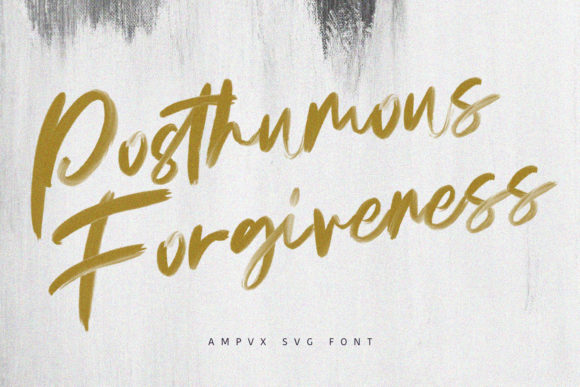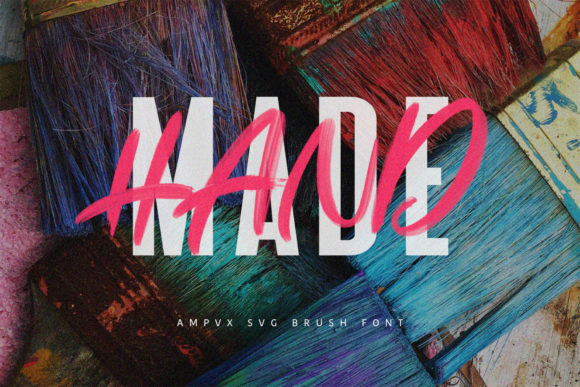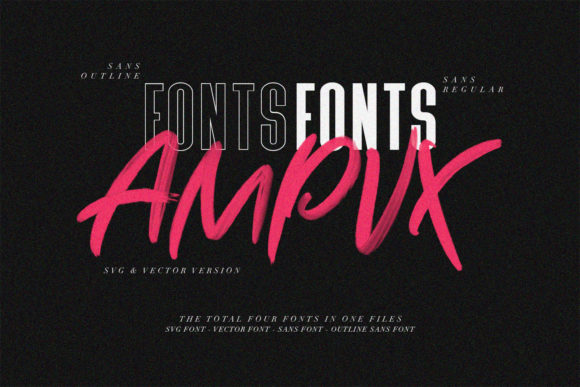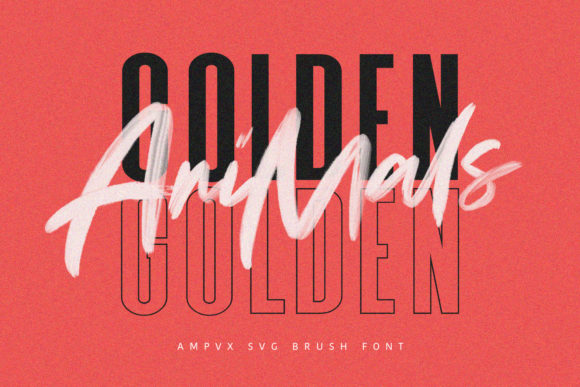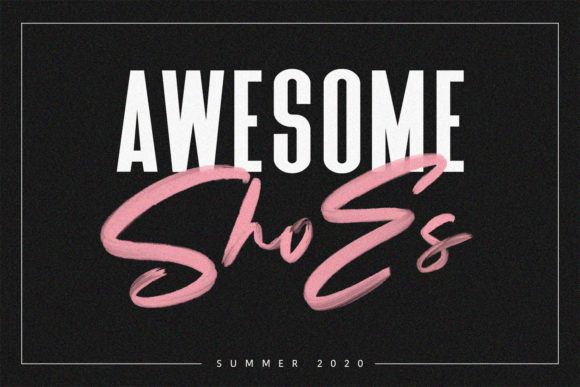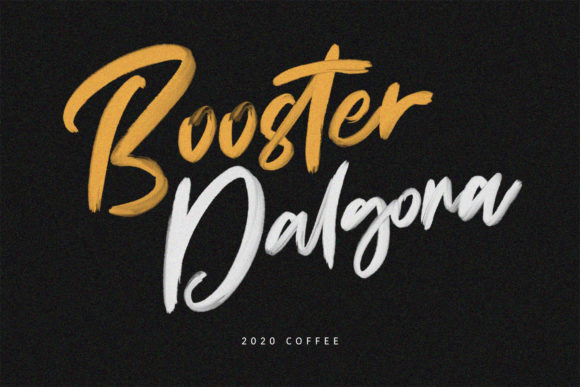
Introducing Ampvx Font: The Authentic Brush Font for Creative Projects
Are you a designer or crafter looking for a unique and authentic font to elevate your creative projects? Look no further than Ampvx Font, a handcrafted brush font that adds a personal touch to any design. In this article, we’ll explore the features and benefits of Ampvx Font, and how it can be used to create outstanding and original crafting projects.
What is Ampvx Font?
Ampvx Font is a carefully crafted brush font that boasts a distinctive handcrafted feel. Its authentic and organic look makes it perfect for creating designs that require a personal touch. With Ampvx Font, you can add a touch of elegance and sophistication to your projects, making them stand out from the crowd.
Features of Ampvx Font
Ampvx Font comes with a range of features that make it an ideal choice for designers and crafters. Some of its key features include:
- Handcrafted feel: Ampvx Font is carefully crafted to give it a unique and authentic look that is perfect for creating handmade or crafty designs.
- Authentic brush strokes: The font features authentic brush strokes that give it a natural and organic look.
- Perfect for creative projects: Ampvx Font is designed specifically for creative projects, making it perfect for designers, crafters, and DIY enthusiasts.
Uses of Ampvx Font
Ampvx Font is a versatile font that can be used for a wide range of creative projects. Some of the most popular uses of Ampvx Font include:
- Signature design: Ampvx Font is perfect for creating unique and elegant signatures that make a lasting impression.
- Stationery design: The font can be used to create beautiful stationery, including letterheads, invitations, and greeting cards.
- Logo design: Ampvx Font is an excellent choice for logo design, adding a touch of elegance and sophistication to any brand.
- Quote and magazine design: The font can be used to create stunning quotes, magazine covers, and book covers that grab attention.
- Website headers: Ampvx Font can be used to create eye-catching website headers that make a lasting impression.
- Flyers and brochures: The font is perfect for creating flyers, brochures, and other marketing materials that require a personal touch.
- Branding and packaging design: Ampvx Font can be used to create beautiful branding and packaging designs that stand out from the crowd.
Benefits of Using Ampvx Font
Using Ampvx Font offers a range of benefits for designers and crafters. Some of the most significant advantages of using Ampvx Font include:
- Unique and authentic look: Ampvx Font adds a unique and authentic touch to any design, making it perfect for creating standout projects.
- High-quality design: Ampvx Font is designed to high standards, ensuring that your projects look professional and polished.
- Versatility: The font can be used for a wide range of creative projects, making it a valuable addition to any designer’s toolkit.
In conclusion, Ampvx Font is an authentic brush font that offers a unique and handcrafted feel that’s perfect for creating outstanding and original crafting projects. With its range of features, versatility, and ease of use, Ampvx Font is an excellent choice for designers and crafters looking to elevate their creative projects. Whether you’re creating signatures, stationery, logos, or marketing materials, Ampvx Font is the perfect choice for adding a personal touch to your designs.